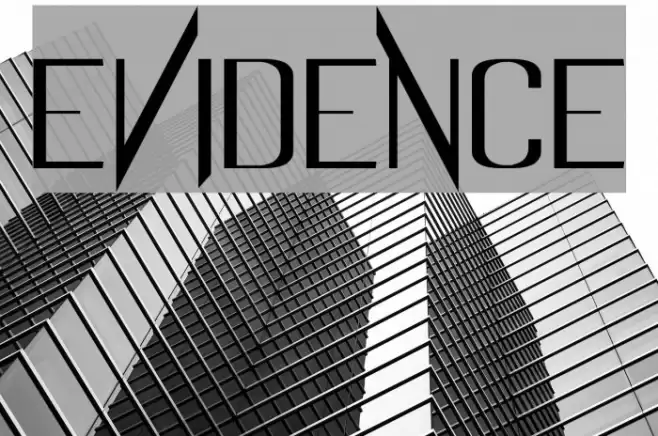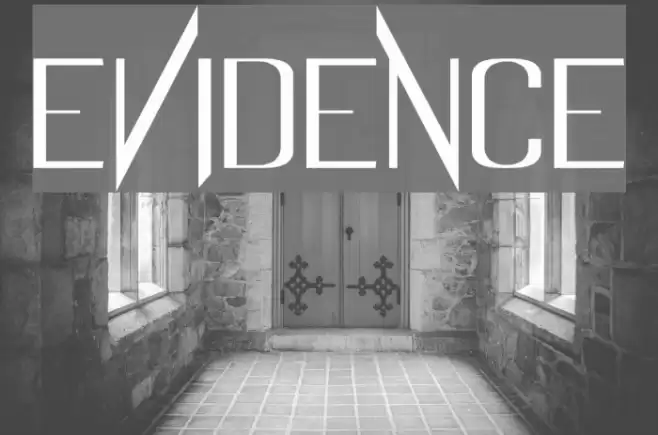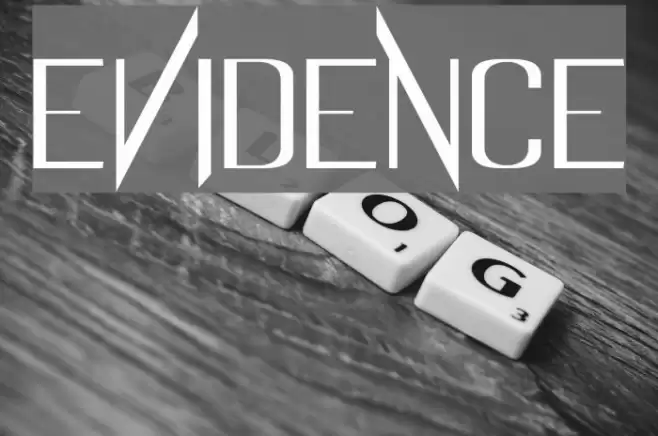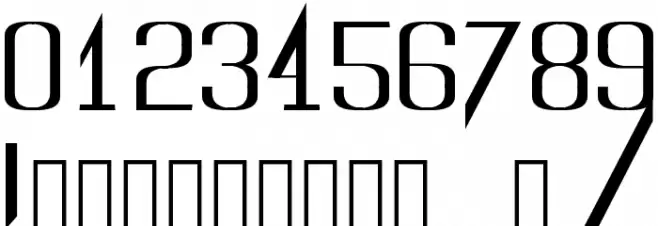
Evidence Font
Evidence Description
This font features a modern and edgy design with sharp, angular lines and a futuristic aesthetic. The uppercase letters are bold and striking, with unique geometric shapes that give them a distinctive look. The lowercase letters maintain the same angular style, creating a cohesive and dynamic appearance. The numerals are consistent with the overall design, offering a sleek and contemporary feel. Special characters are also included, matching the font's sharp and modern style. This font is perfect for projects that require a bold and futuristic touch.
A modern, angular font with a futuristic and edgy design from Uncategorized fonts.